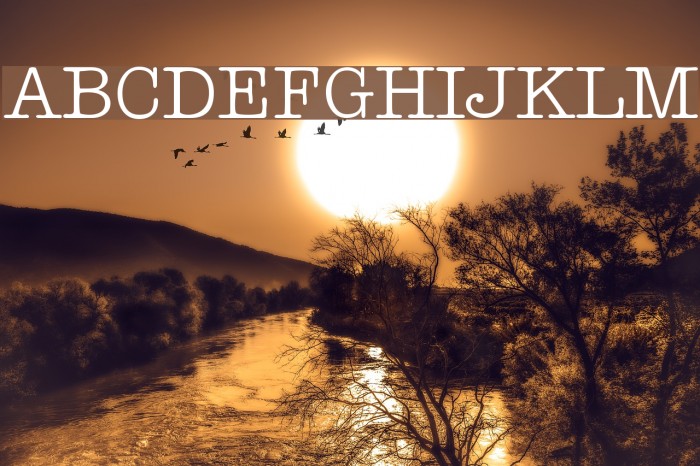
Teletype Regular Font
This font exhibits a classic typewriter style, characterized by its monospaced design where each character occupies the same amount of horizontal space. The letters are clean and legible, with a mechanical aesthetic that evokes a sense of nostalgia. The strokes are consistent in width, providing a uniform appearance across all characters. The serifs are subtle, adding a touch of elegance without compromising the font's straightforward nature. This font is ideal for conveying a retro or vintage feel, often used in contexts that require a typewriter-like appearance.
A classic monospaced typewriter-style font with subtle serifs and uniform stroke width.
- Proposed Projects: Ideal for retro-themed designs, coding environments, or any project requiring a vintage typewriter aesthetic.
- Overall Style: Vintage
- Use Case: Coding, Retro designs, Typewriter simulations